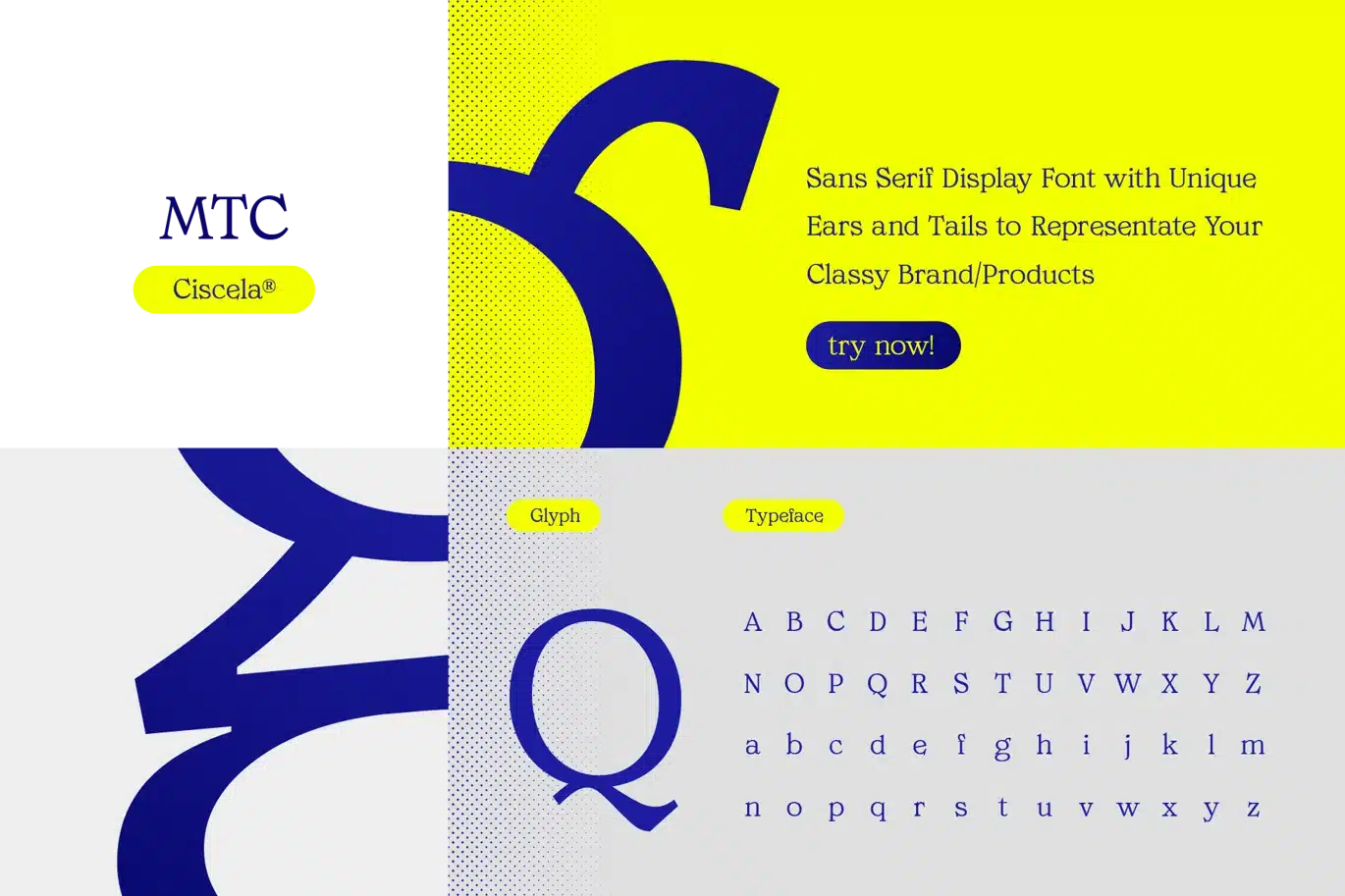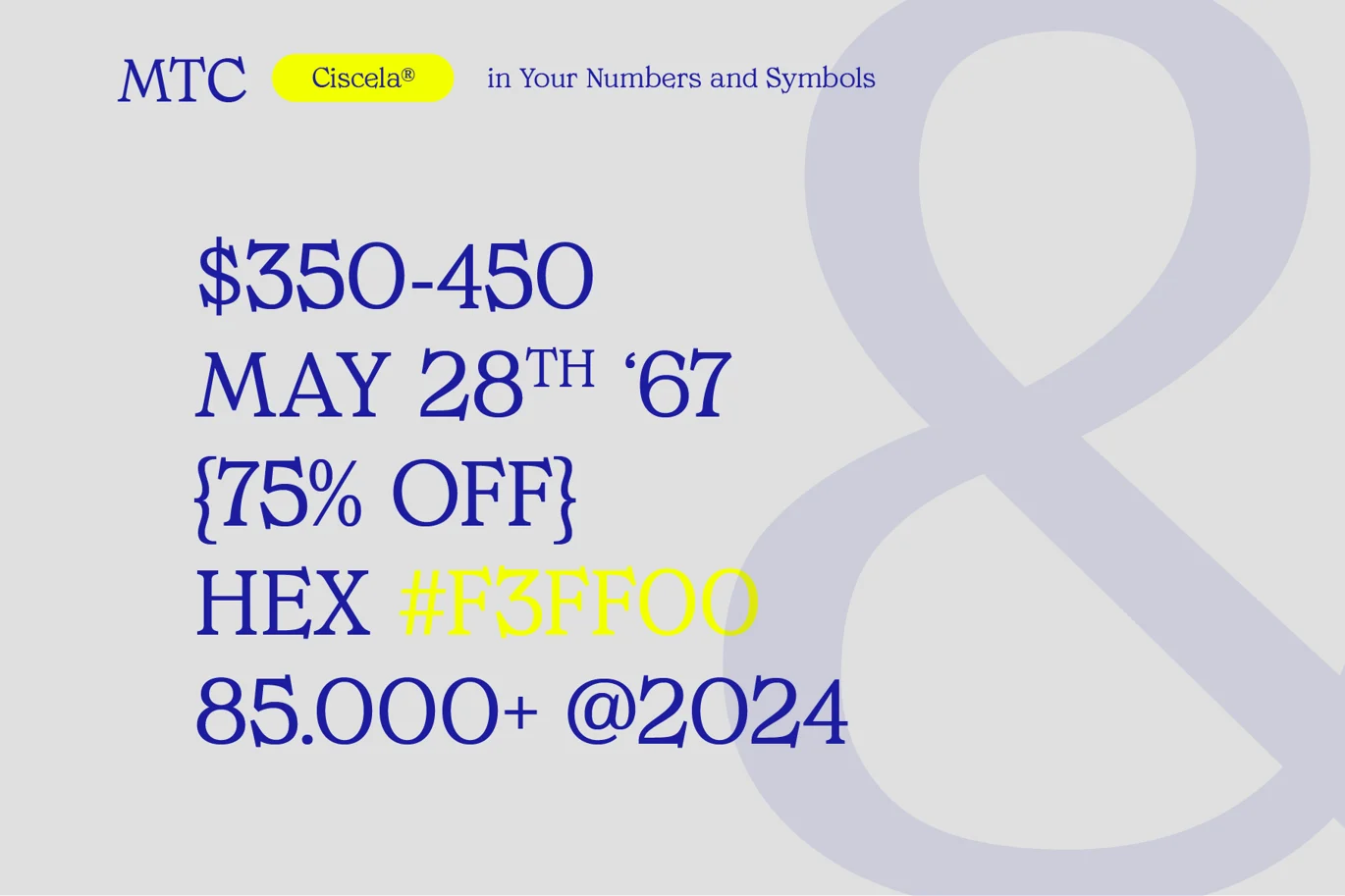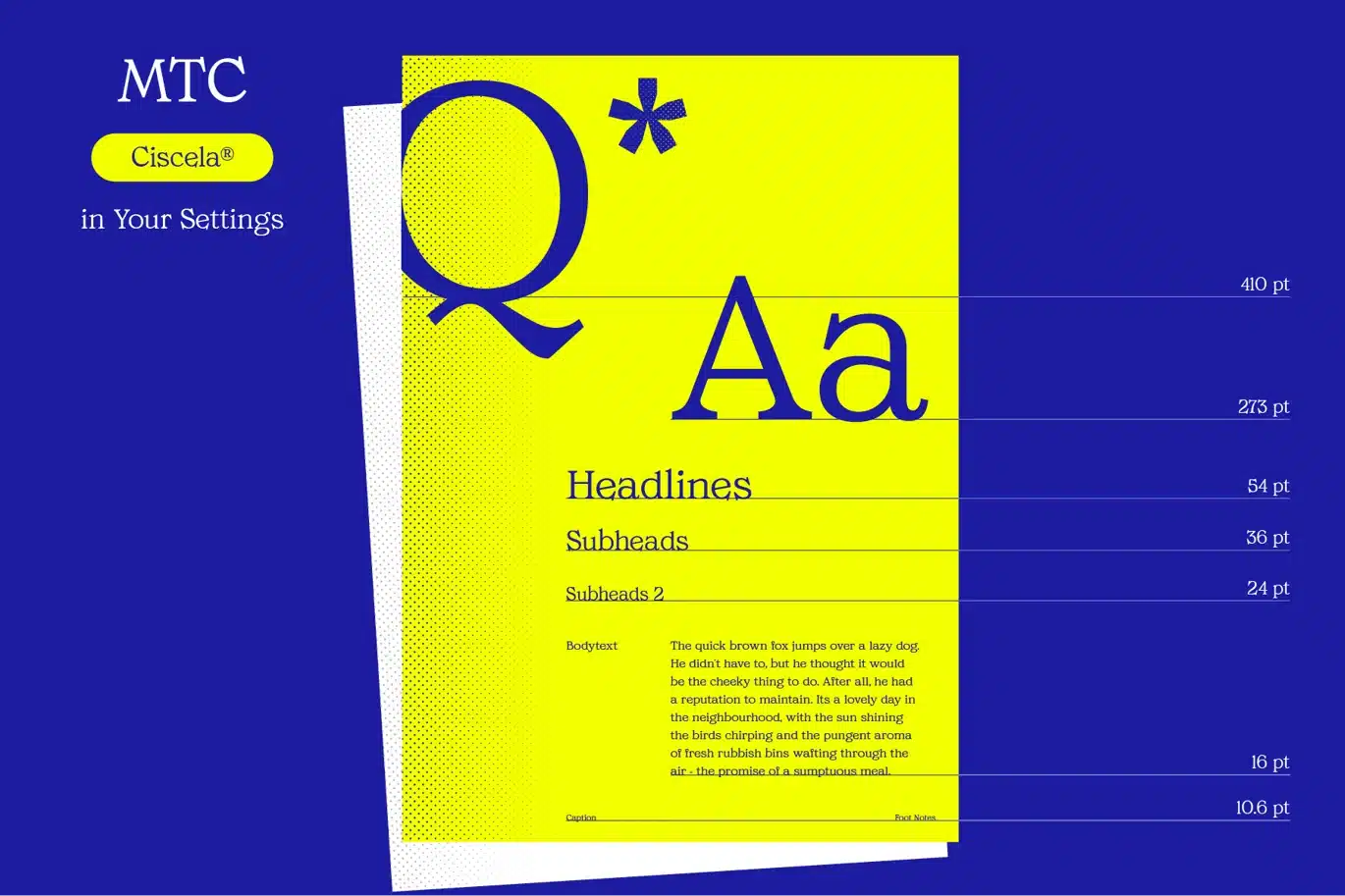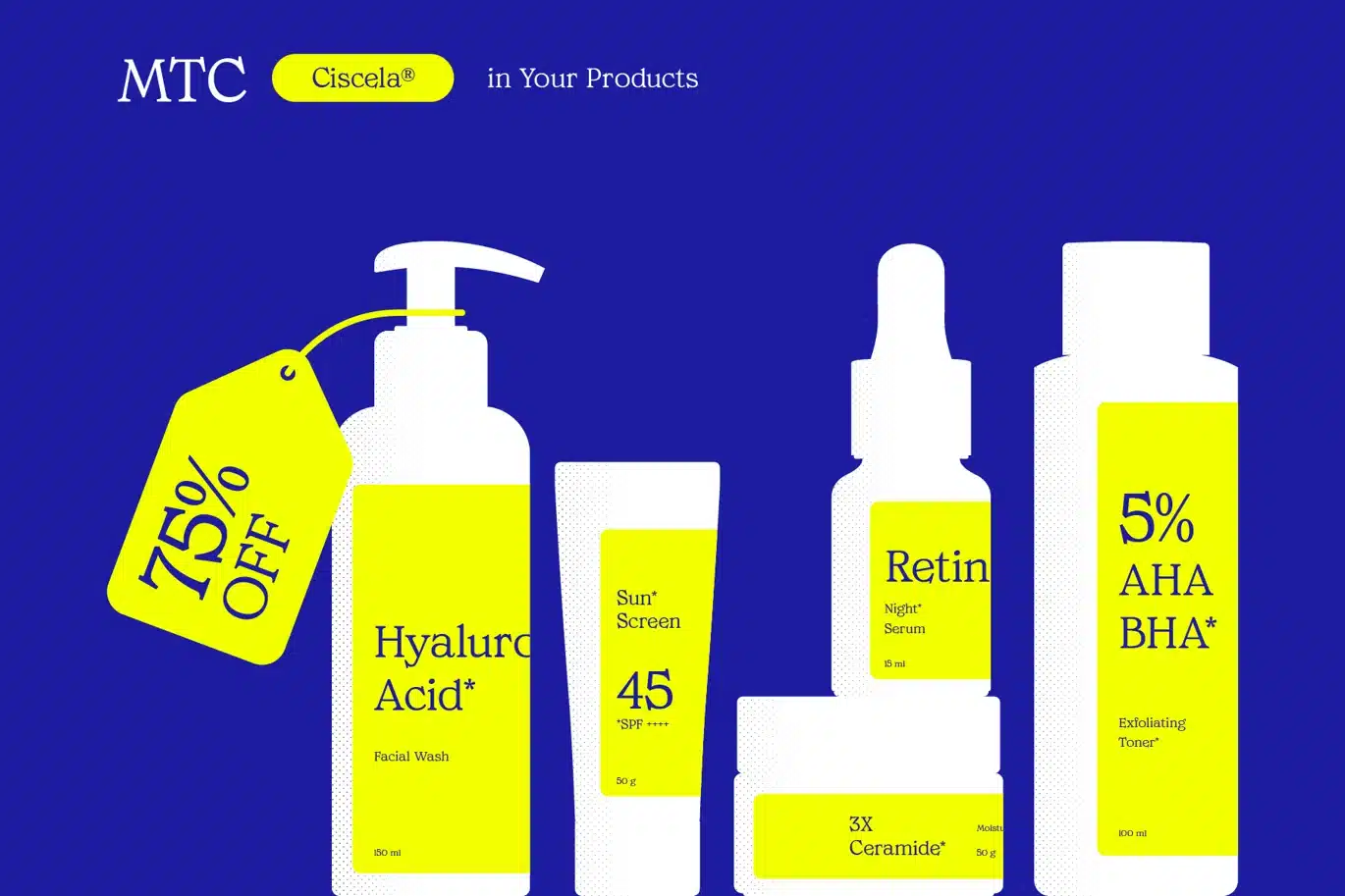
Ciscela – Unique Serif Display Font
Introducing Ciscela: A Minimalist Serif with Unique Tails
Discover the elegance of simplicity with Ciscela. Crafted for those who appreciate the finer details, this serif font blends classic sophistication with modern minimalism. Each character is meticulously designed to bring a touch of refinement to any project.
Timeless Elegance: Balances traditional serif elements with a clean, contemporary twist.
Versatile Application: Perfect for branding, editorial design, and digital projects.
Distinctive Personality: Adds a unique flair serif to your work while maintaining readability and grace.
Let MTC Ciscela be the subtle yet impactful voice of your next creative endeavor. Transform your text into a statement of style and sophistication.